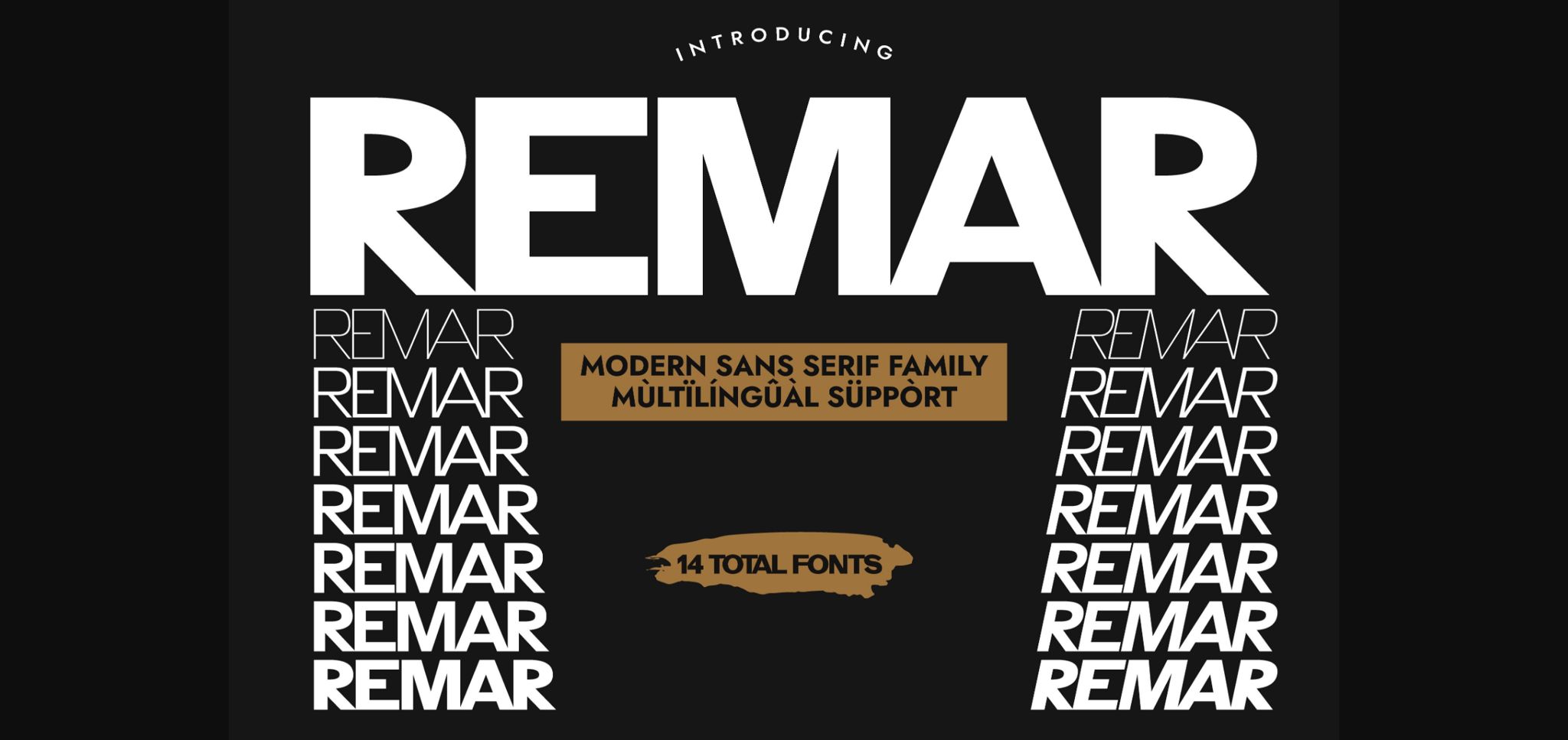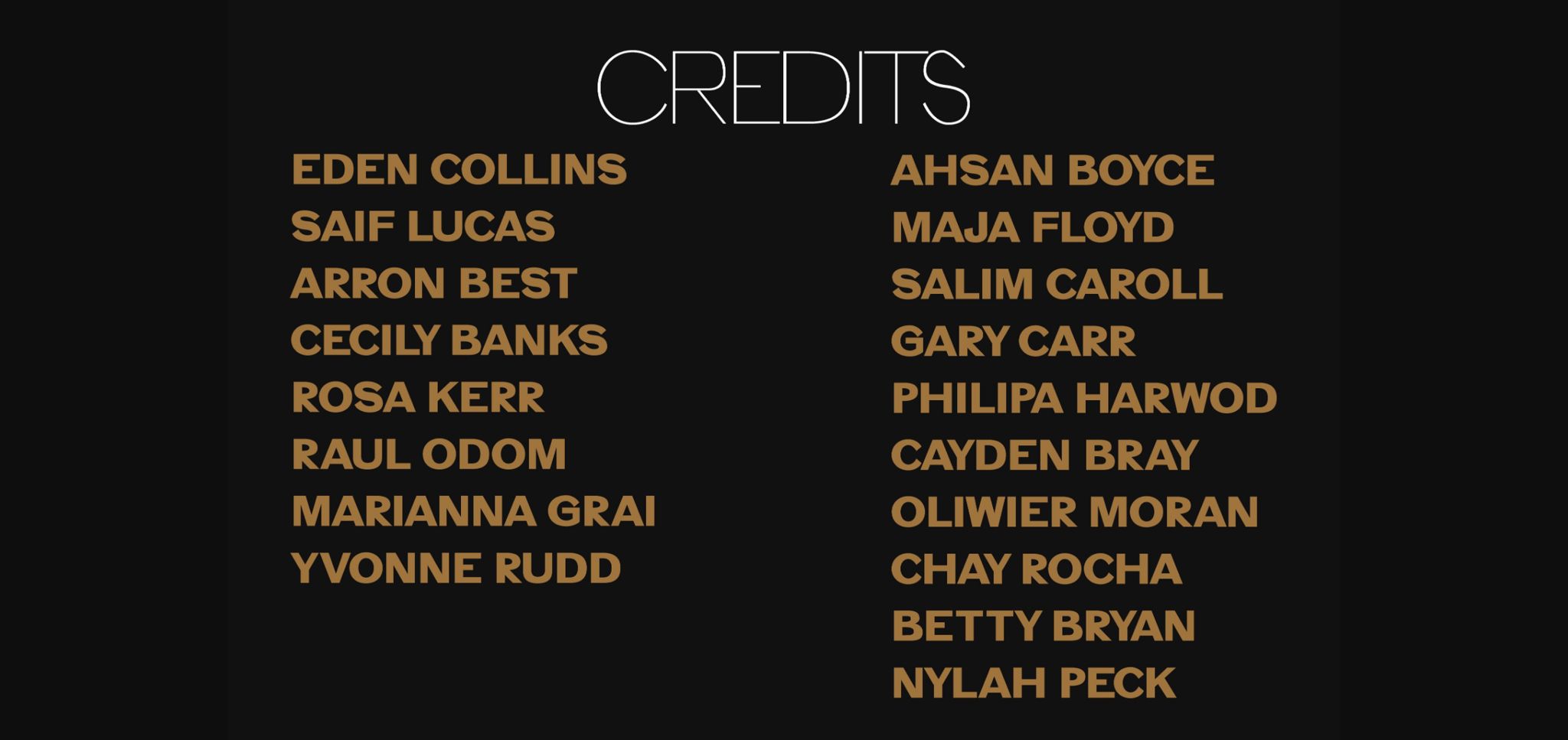
About Remar Font
Remar is a minimalist grotesque sans serif typeface. It comes with seven fonts weight and their corresponding italics to enrich your design. Its versatility renders it a vital choice when you are designing products, books, packaging designs, magazines, etc. Add it to your font library, and you will notice how it easily becomes your favorite choice in many design contexts.